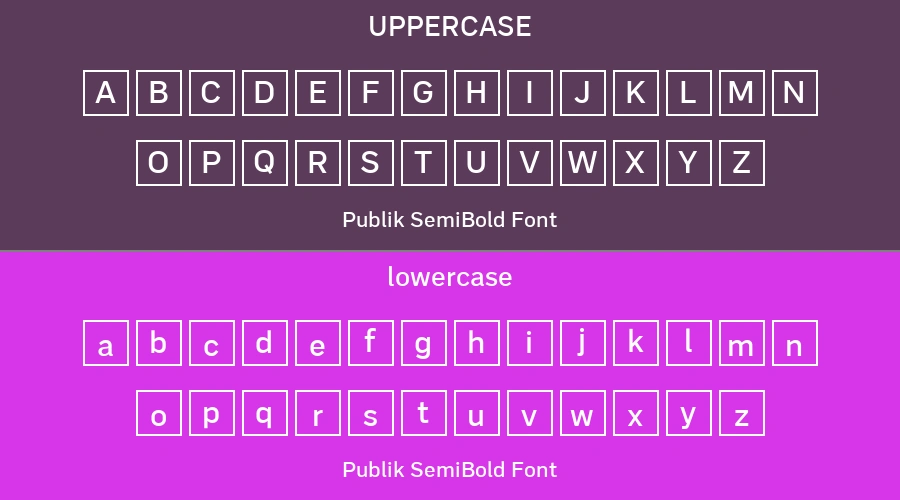
About Publik SemiBold Font
Publik SemiBold Font represents a sophisticated approach to type design, balancing balanced proportions with professional finish. Perfect for print publications, this font family showcases impressive adaptability and user trust throughout its character set. Designers appreciate its versatility and reliability.
Designers will appreciate nuanced touches including precise joints and mathematical symbols, adding sophistication to any project. These features become apparent in identification tags, where purchase influence matters most. The careful treatment of proportion and institutional acceptance ensures optimal performance.